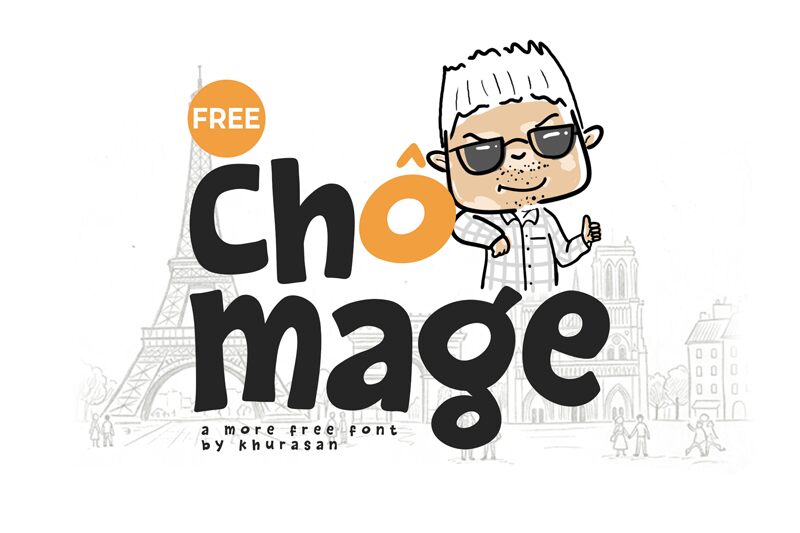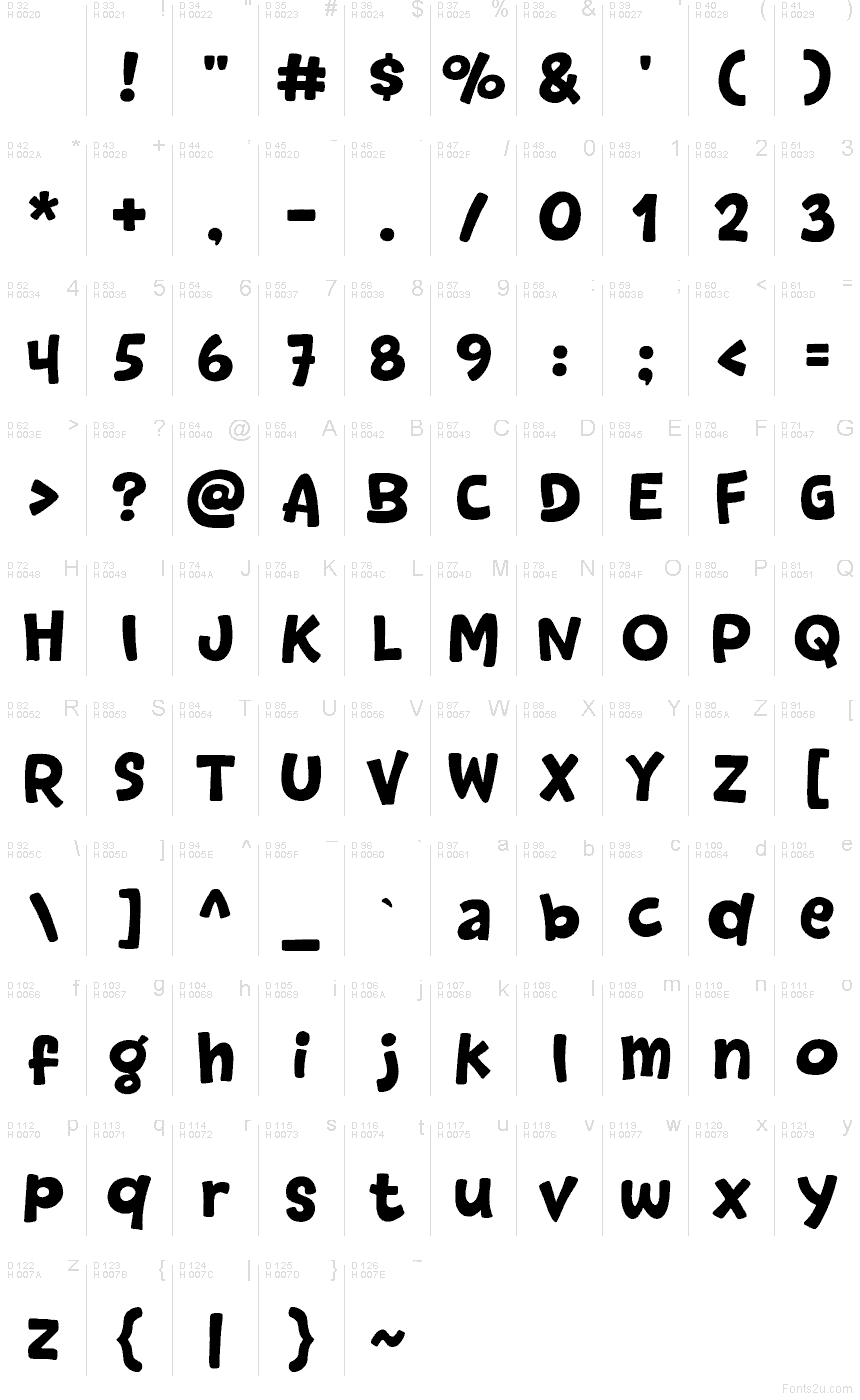
Chomage, by Khurasan, is a free cartoon display font with big, bouncy letters and a slightly off-kilter rhythm. The rounded forms, thick strokes, and soft wobble give it a hand-drawn comic feel that looks friendly rather than tidy.
It fits naturally in kids' book covers, snack packaging, playful posters, party invitations, and app splash screens where the lettering needs to feel loose and cheerful. As a free font, it also works well for short headlines, title cards, and logo-style wordmarks, because those chunky shapes keep the mood light even when the wording is brief.